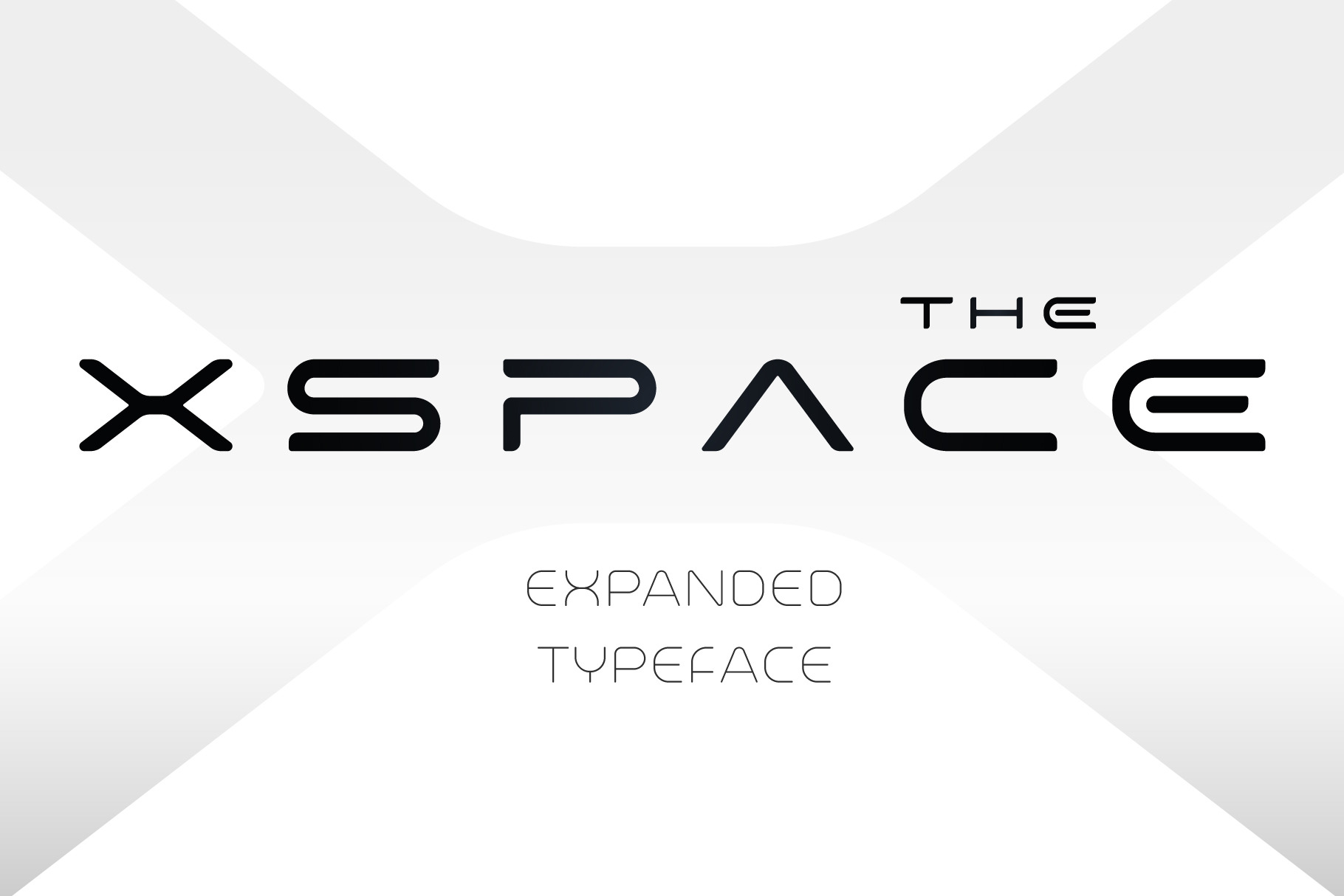
X-Space Headline Font
I'm thrilled to present you a new futuristic typeface. Smooth humanistic forms and elongated proportions, modern trends dictate a new fashion in type design. Perfect for science research posters, modern futuristic logos, automotive type design and more.
The font includes uppercase and lowercase letters, numbers and currency symbols, punctuation marks full set and language coverage.